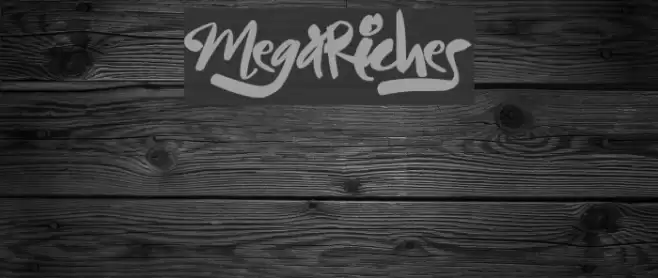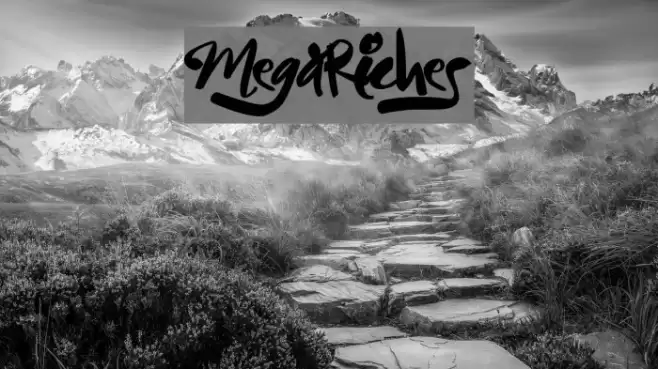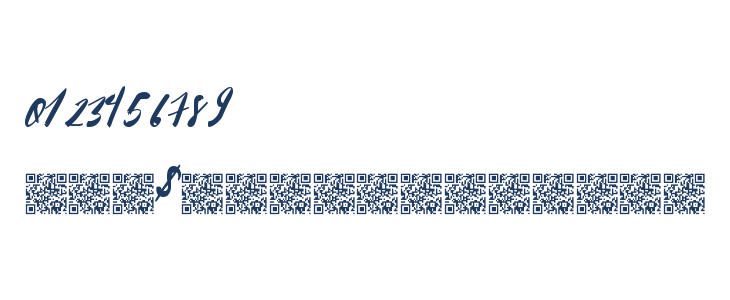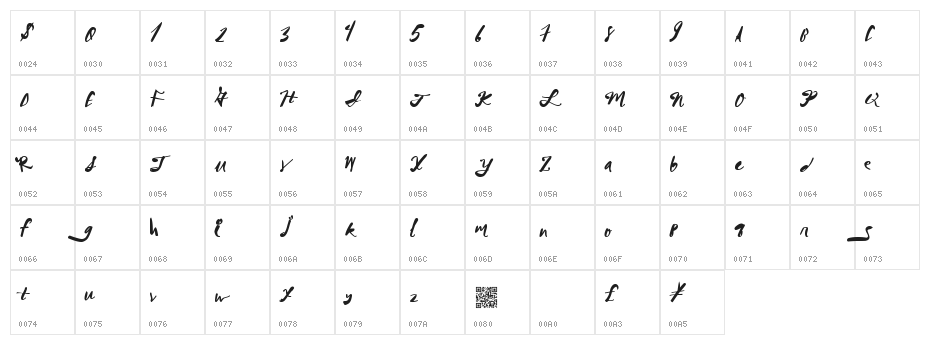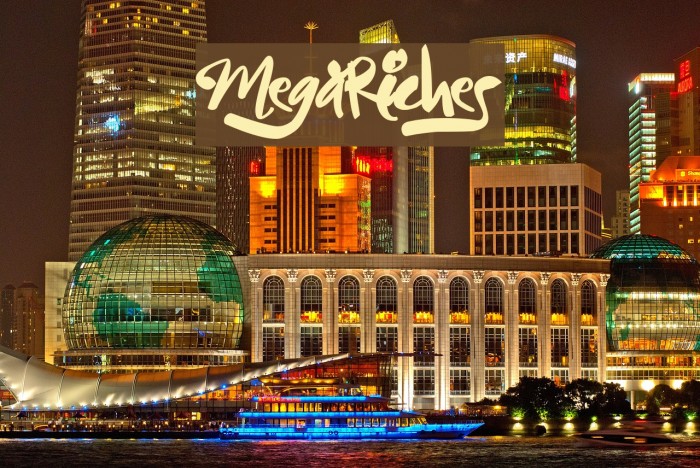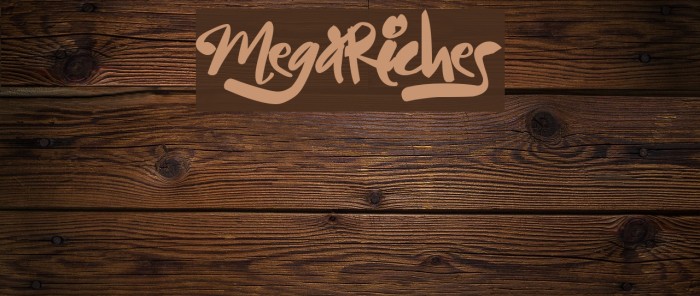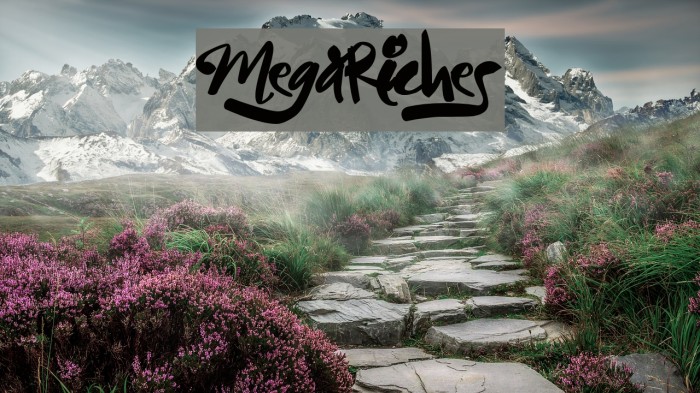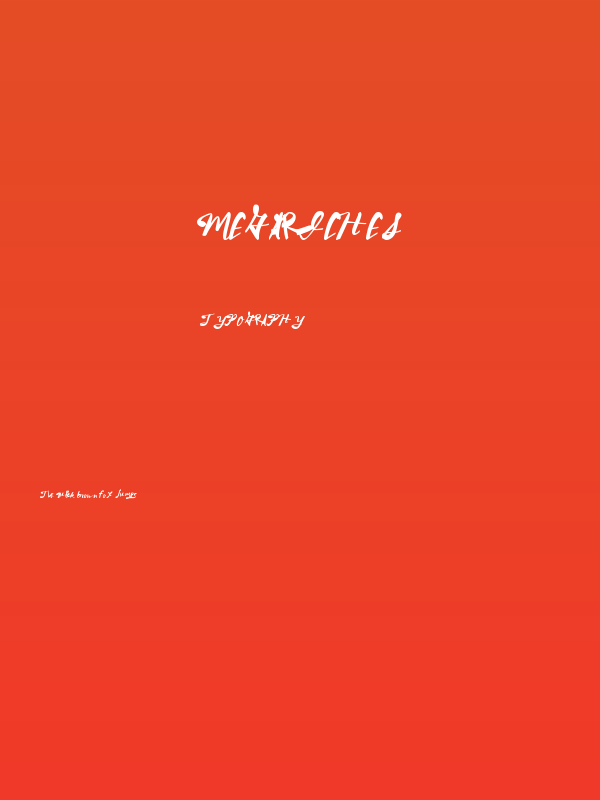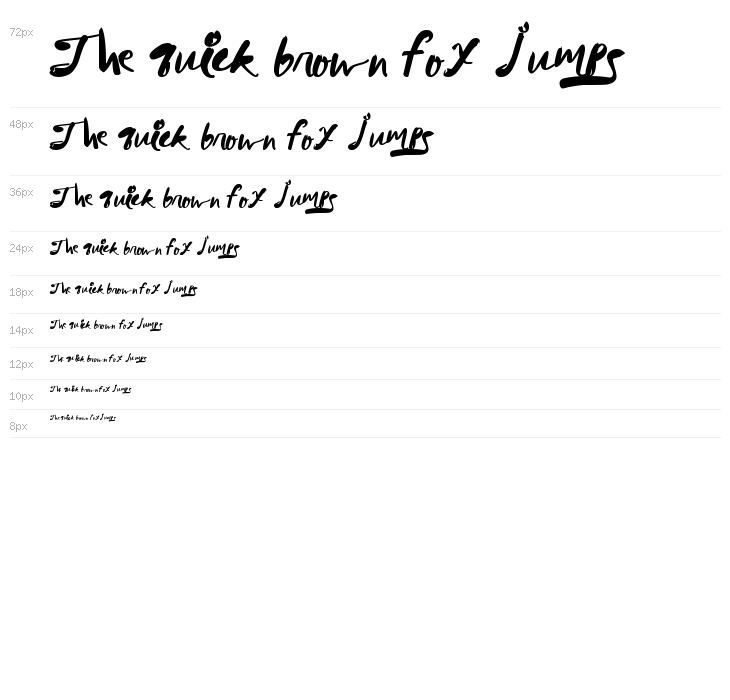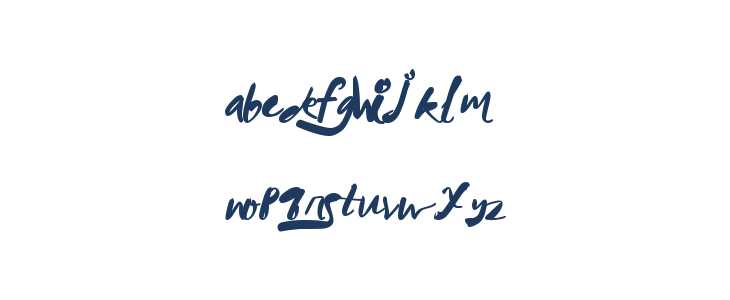
MegaRiches Font
MegaRiches Description
This font exudes a dynamic and expressive style, characterized by its fluid, cursive script that mimics the natural flow of handwriting. The letters are bold and slightly slanted, with varying stroke widths that add a sense of movement and energy. The uppercase letters are distinct and prominent, while the lowercase letters maintain a consistent rhythm, enhancing readability. The numerals and special characters are crafted with the same attention to detail, ensuring a cohesive look across all text elements. The overall design is both elegant and casual, making it suitable for a variety of creative applications.
A bold, cursive script font with dynamic strokes and a handwritten feel from Uncategorized fonts.
- Proposed Projects: Ideal for branding, invitations, greeting cards, and artistic projects that require a personal touch.
- Use Case: Logos, Headlines, Invitations